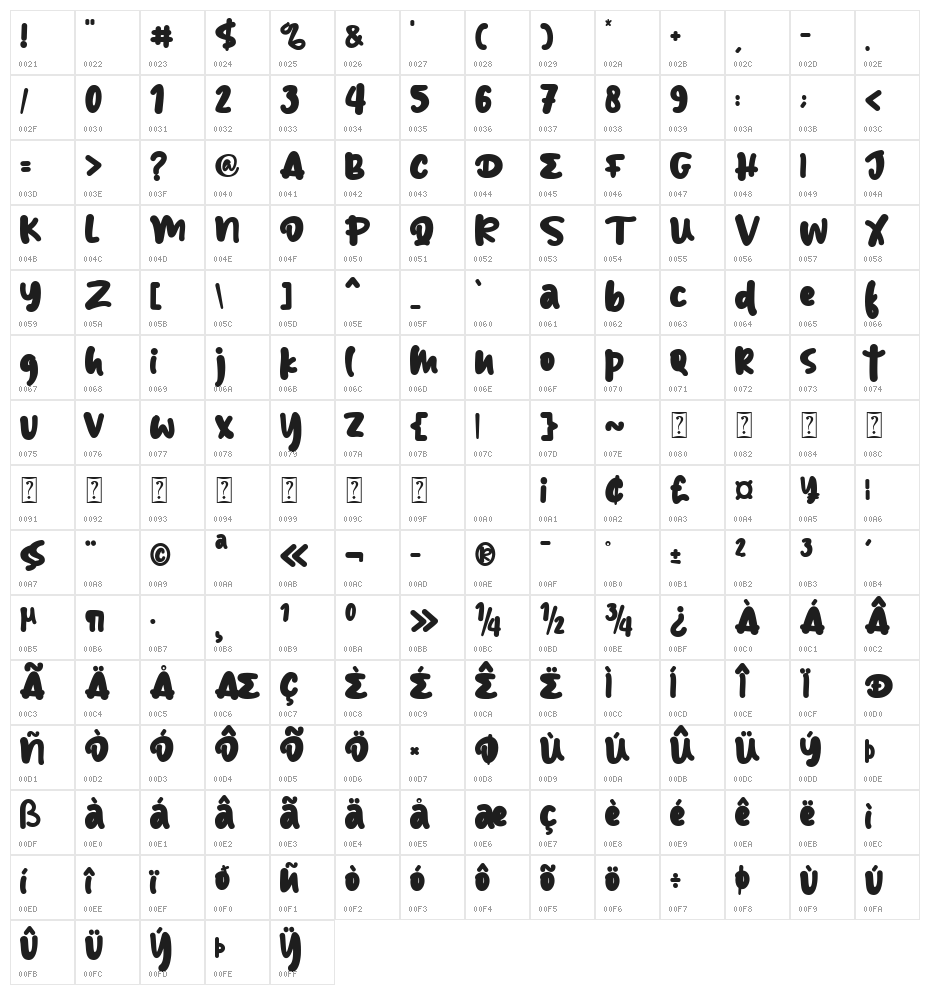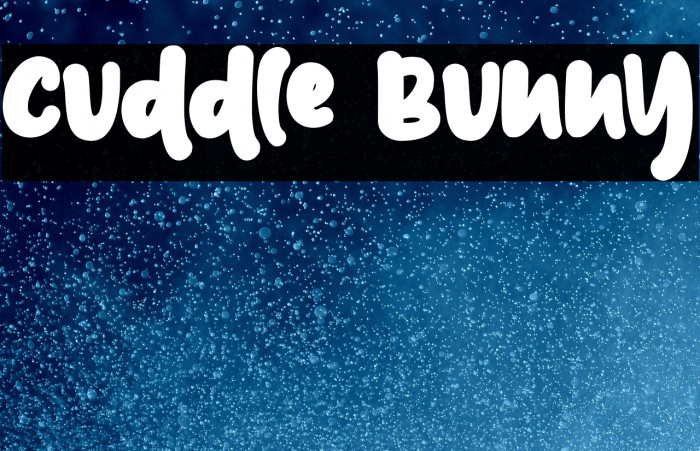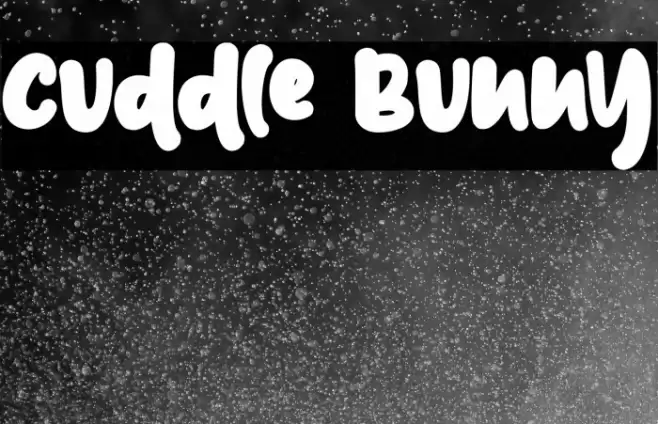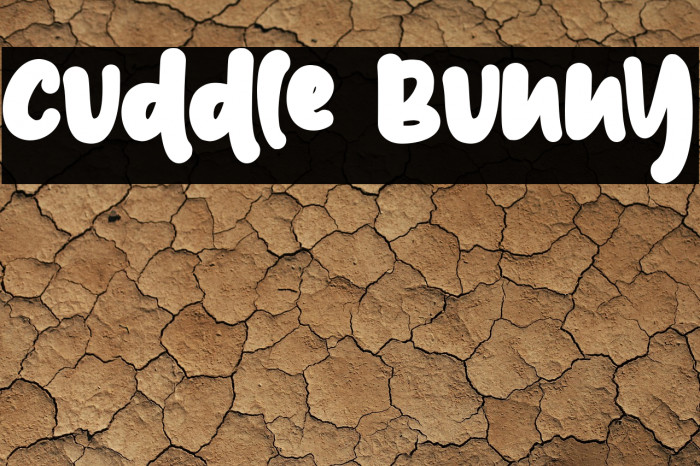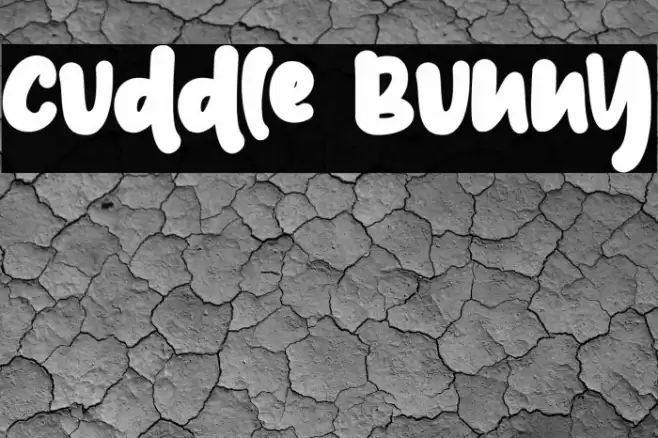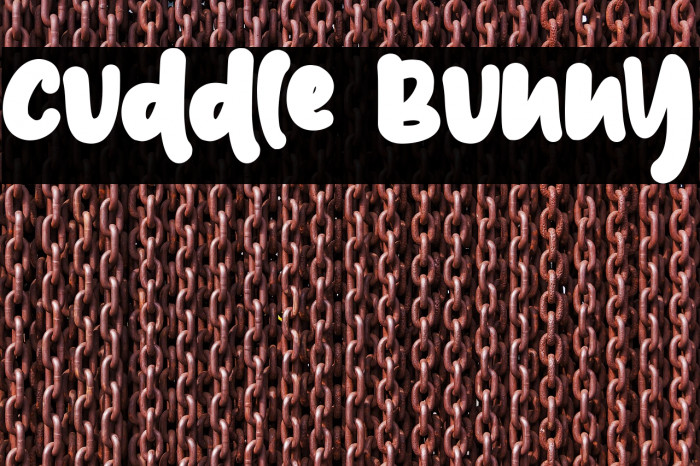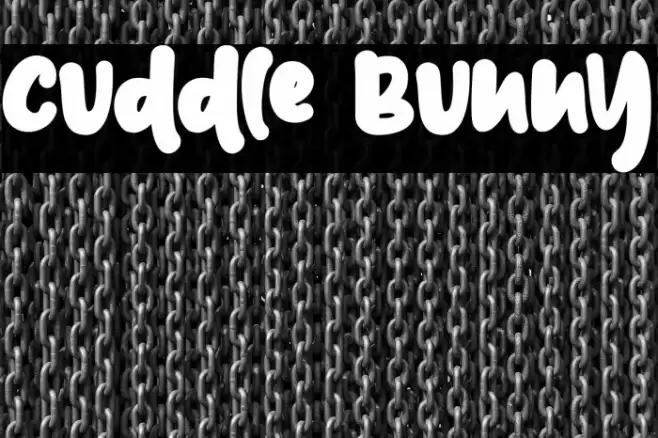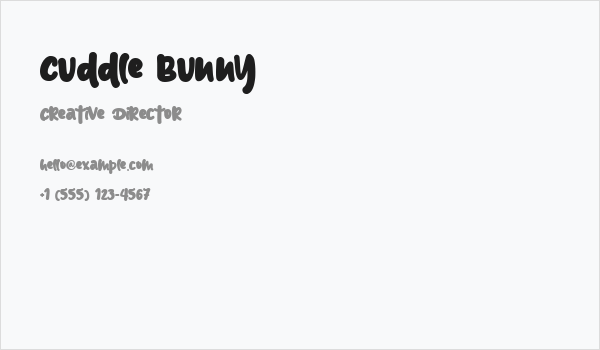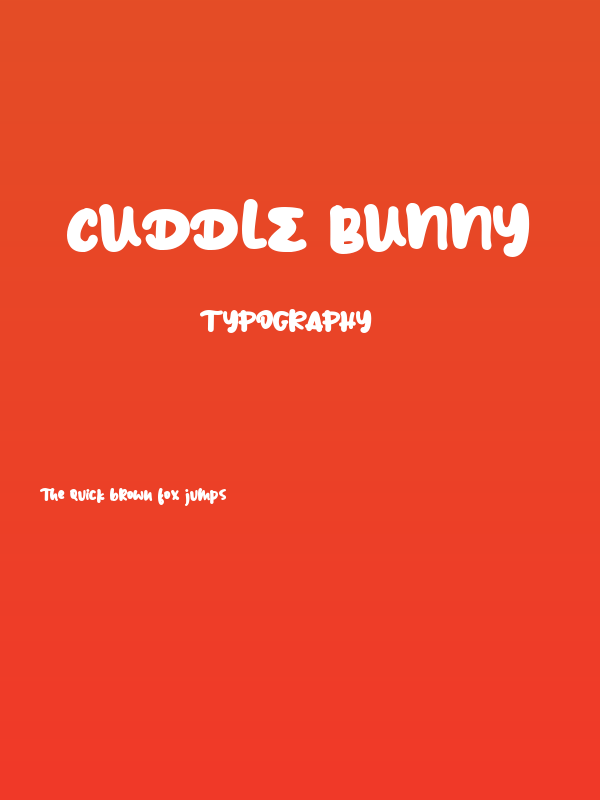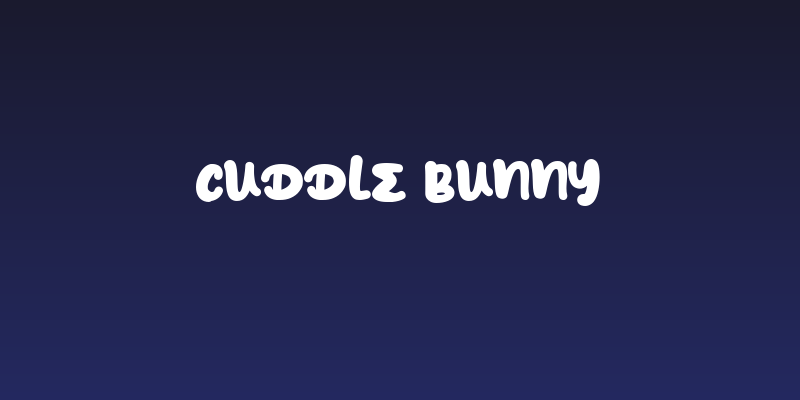
Cuddle Bunny Font
Cuddle Bunny Description
This playful and bold font features a handwritten style with thick, rounded strokes that convey a sense of fun and whimsy. The characters are generously spaced, enhancing readability while maintaining a casual, friendly appearance. The uppercase and lowercase letters are consistent in style, with smooth curves and a slightly irregular baseline that adds to the font's charm. Numbers and special characters are equally bold and expressive, making them suitable for a variety of creative applications. The overall design is cohesive, with a lively and approachable aesthetic that is perfect for projects aimed at a youthful or informal audience.
| Proposed Projects | Ideal for children's books, playful branding, greeting cards, and social media graphics. |